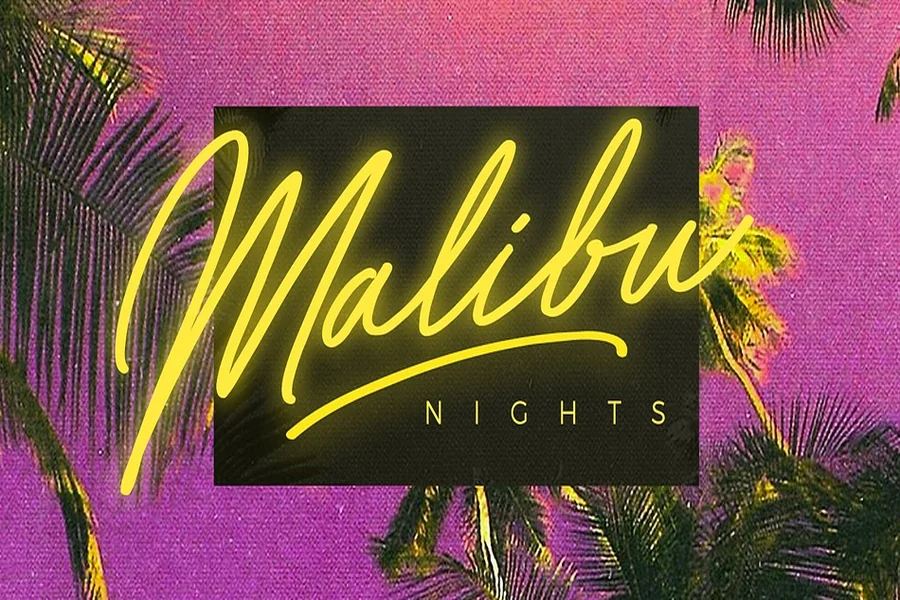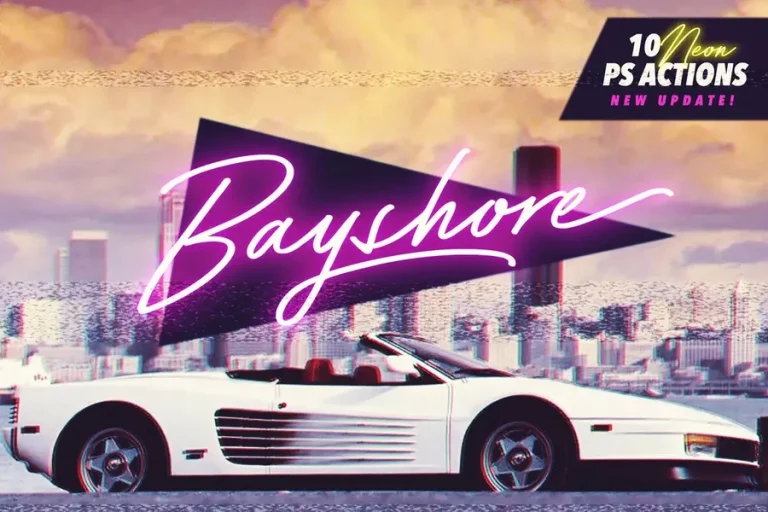
Bayshore Font Style Guide For Creative Design Lovers
The bayshore font is a bold and fashionable type-face which has a retro touch but has a modern touch. It is childish but sure. It is also popular with a lot of designers since it can add personality and is not lost in clarity. The font is suitable when used in logos poster social posts and branding. Its well-proportioned lines and well-balanced lines and lines are easy to read and stand out. The bayshore font is innovative and not noisy. It is that equilibrium that makes it become more popular.
This font is mostly used by designers when they desire a friendly and yet bold font. It is written in a casual manner that is quite friendly. Meanwhile it appears powerful and passionate. The combination of those makes it applicable to numerous creative works.
Why Bayshore Font Feels Unique
The bayshore font is unique due to the smooth structure and confident flow. It does not have sharp angles and, rather, rounded shapes. This puts a friendly atmosphere. The distance is natural and that makes the text to breathe. It is effective when it comes to headlines and brief messages.
The other factor that has made this font popular among designers is the fact that it can be adapted. It is very attractive on the digital and print. Since posters to social graphics it remains clean and read-able. It has a human touch in its character design, as it looks hand made. It is suitable with brands that desire to be authentic and friendly.
Creative Uses of Bayshore Font
Bayshore font is applicable to most creative work. It is effective with logos particularly the lifestyle brands. It is also seen to be beautiful on the clothes designs like shirts and hats. It is commonly used by the creators of social media as quotes and banners. It attracts attention and does not drown out the message.
It can also be used in event posters and music covers. Its humorous nature gives images liveliness. In combination with smooth colors it is relaxing. In combination with bright colors it is thrilling. The abundance of flexibility is a major strength.
How Bayshore Font Enhances Branding
The identity of the brand is dependent on consistency and emotion. Bayshore font assists in producing the two. It provides the brands with a personal voice. It feels modern but not cold. It is ideal in the case of start-up creative studios and lifestyle brands.
The cross platform recognition is created using this font. Readers begin relating the style to the personality of the brand. It is welcoming and unforgettable. It is a useful brand emotional tie.
Popular Styles That Pair Well With Bayshore Font
The bayshore font is compatible with a low layout. It is shining because of clean backgrounds. The colors are soft pastel and create a relaxing atmosphere. Bright tones create energy. It can be balanced by pairing it with plain sans serif fonts.
It also does not go ill with photography. Positioned on top of pictures it can remain legible. That makes it wonderful when it comes to the promotion of graphics and banners. Designers find its freedom in themes and moods.
How to Use Bayshore Font Effectively
The bayshore font should be used on short text blocks in order to achieve the best results. Titles and headlines are the best. Long paragraphs should be avoided because the style is more expressive not neutral. Use plain fonts to use as body text.
Spacing is important. Allow the letters space. Avoid crowding the text. This makes the design clean and readable. Color choice also matters. Select colors that suit your mood of the brand.
Final Thought
Bayshore font is an influential option to those designers who require style and warmth. It introduces character and is not too heavy-handed in the messaging. It is easy to love it because of its easy curves and harmonious shape. Be it branding some social content or creative work it delivers and is charming and clear. When you are looking to have a font that is modern friendly and expressive the bayshore font is a pool of strength.
What is bayshore font best used for?
Bayshore font is best for logos headings posters and creative branding projects where personality matters
Is bayshore font good for social media?
Yes, it works very well for social posts banners and digital graphics
Can bayshore font be used for business branding?
Yes, it suits modern brands that want a friendly and stylish look
Does bayshore font work with other fonts?
Yes, it pairs well with clean simple fonts for balance
Is bayshore font easy to read?
Yes, it is clear and readable especially for short text and titles